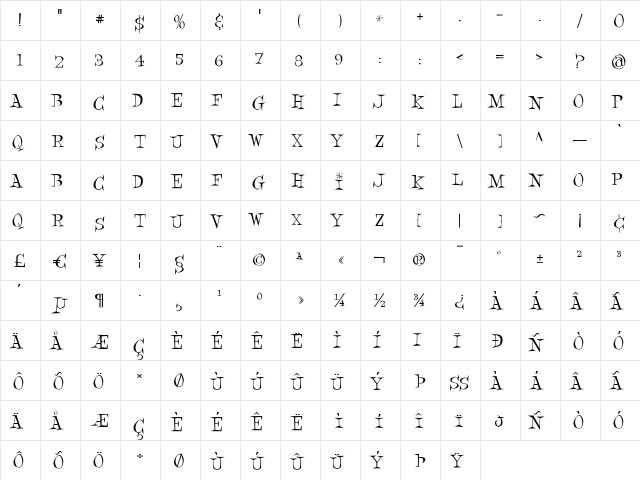
KiddieCocktails Regular
Design Context for KiddieCocktails Typeface
KiddieCocktails is a composed and adaptable typeface that performs quietly and consistently across a wide range of design contexts.